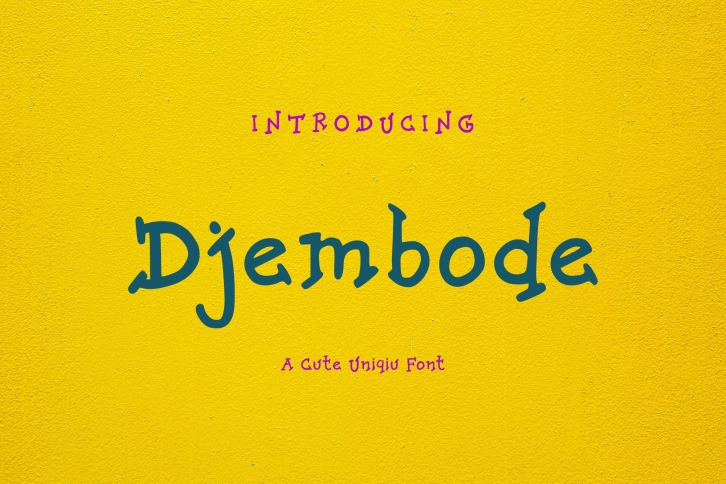
Djembode is a beautiful font that was designed by Koplexs Studio. It's a great choice for designers and creatives who need such a font. It was released on May 1, 2021 and the file size is 9.18 MB. Djembode may give a more youthful, expressive and casual look to your project. It is a very beautiful, refined, elegant, and high-quality font.